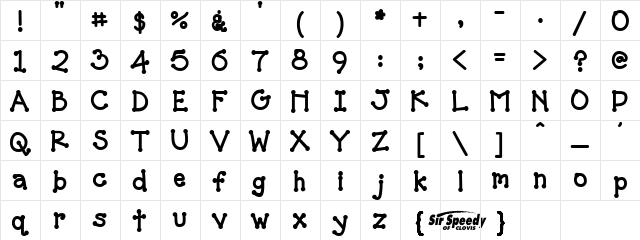
Kindren Medium
Design Context for Kindren Typeface
Kindren takes a measured approach to typography — its balanced proportions and neutral character make it a reliable workhorse for both digital and print work.